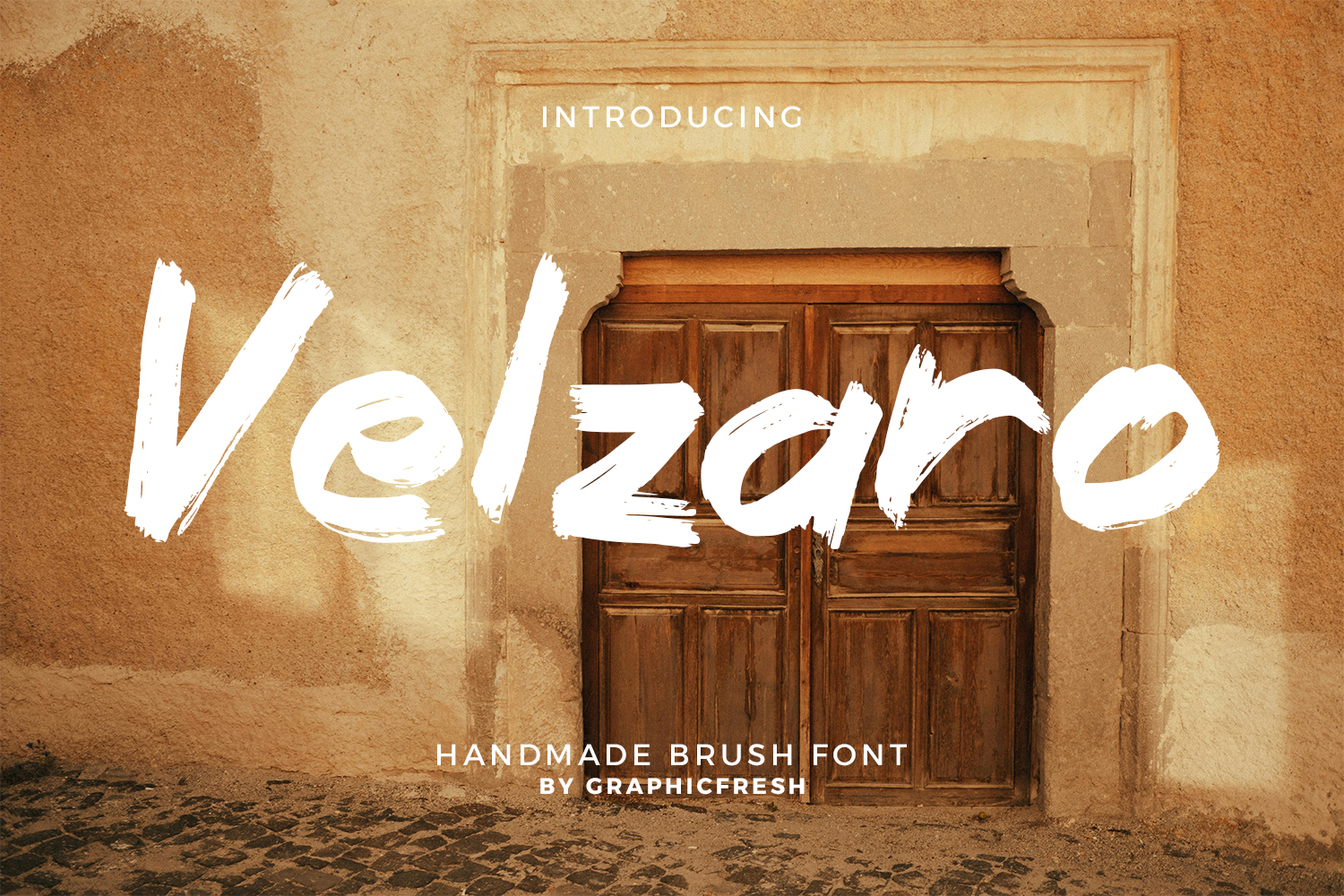
Velzaro - The Handmade Brush Font
Velzaro is a handmade brush font crafted with bold strokes and authentic hand-painted character. Designed to capture the raw beauty of natural brush movement, this font blends expressive texture with a confident and modern presence. Its organic flow and slightly rough edges create a dynamic and artistic personality while maintaining solid readability.